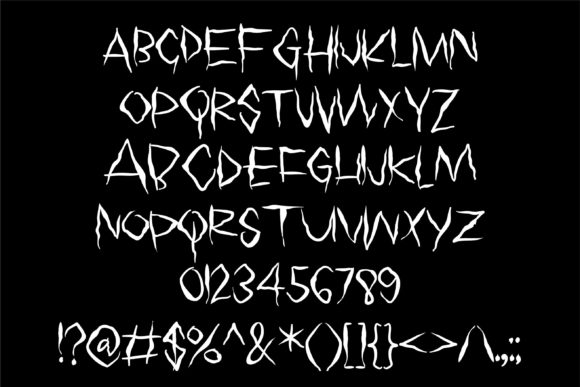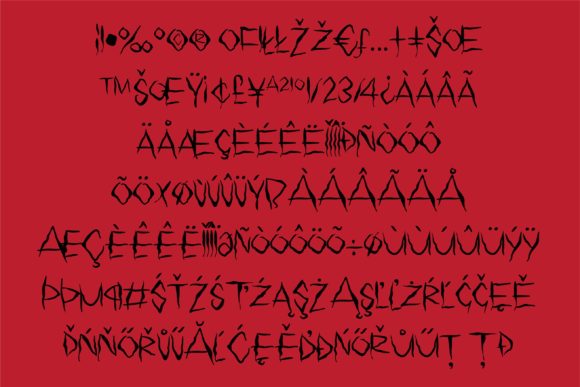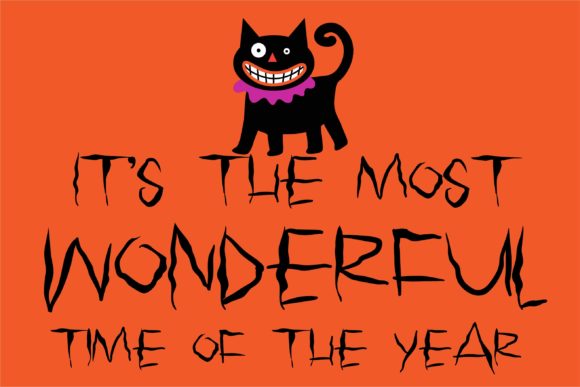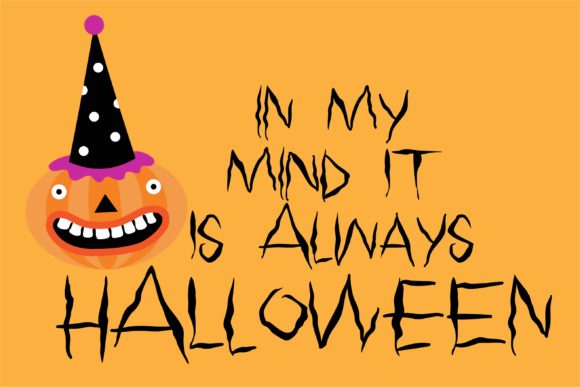
HomeScript FontsQuit Font Script Fonts Quit Font FacebookXPinterestWhatsApp Quit Font Poster 2 Quit Font Poster 3 Quit Font Poster 4 Quit Font Poster 5 About Quit Font Quit is a creepy font with a handcrafted look. DOWNLOAD ON CREATIVE FABRICAThis font is sold and delivered by Creative Fabrica. Font Canyon may earn a commission if you buy through this link. People also explored Solustion Font Zevallya Font Depth Font Allia Font Degdegan Font Dekatron Variable Debola Font Spooky Monogram Font Simplis Font 368 0 TagsQuit Font Previous articleHeartkything Script FontNext articleAquilland Font LEAVE A REPLY Cancel reply Comment: Please enter your comment! Name:* Please enter your name here Email:* You have entered an incorrect email address! Please enter your email address here Website: Save my name, email, and website in this browser for the next time I comment. Personal Use Free Lemon Milk Font Personal Use Free Read more about this font Bright Dreams Personal Use Free Read more about this font Heartburn Personal Use Free Read more about this font Bonhomie Personal Use Free Read more about this font BLOG Fonts That Capture the Spirit of New York City New York City is more than just a place—it’s an experience, a rhythm, a visual language... Top 10 Handwritten Fonts That Elevate Your Designs Transform Your Website: Elevate Your Typography with 7 Best Web Font Generators Exploring Font Trends